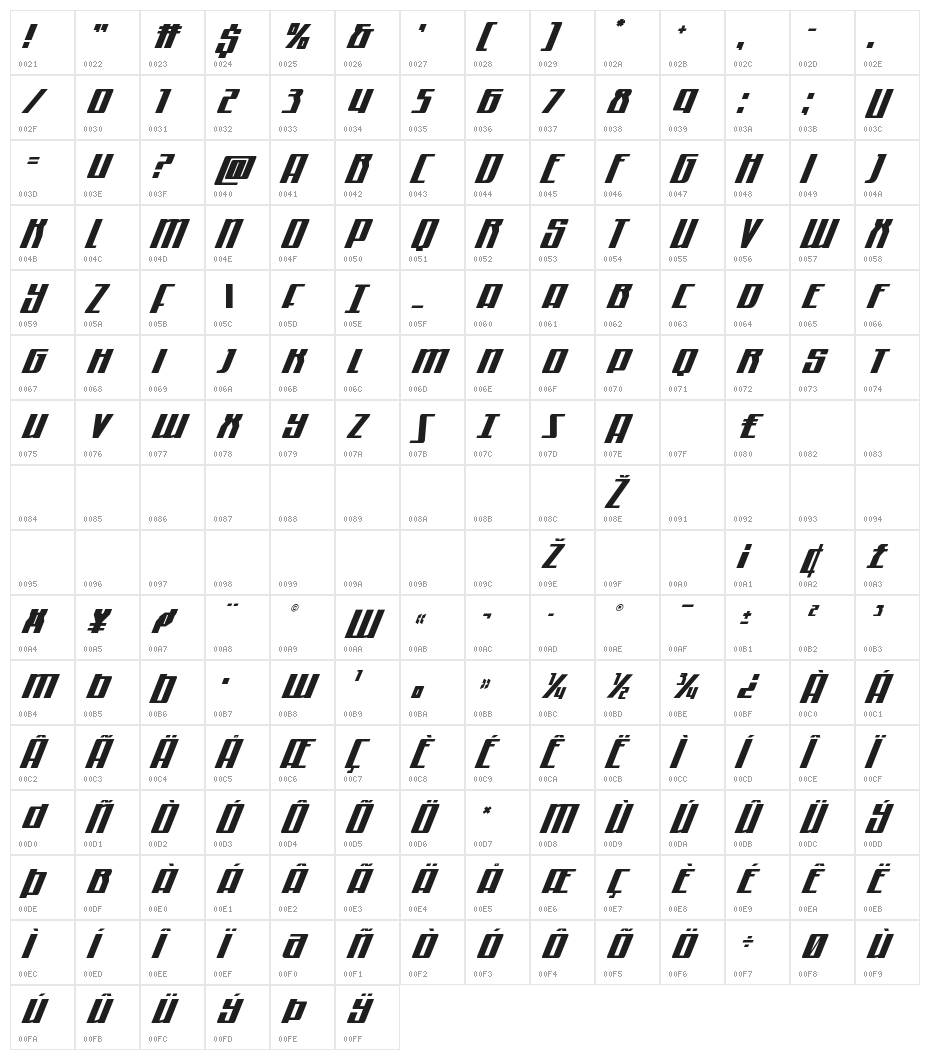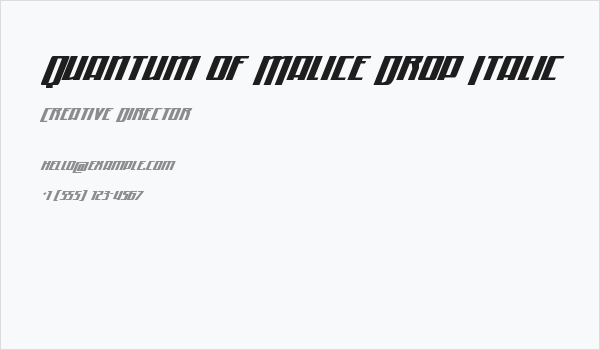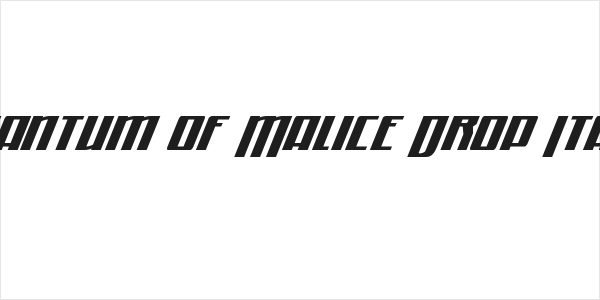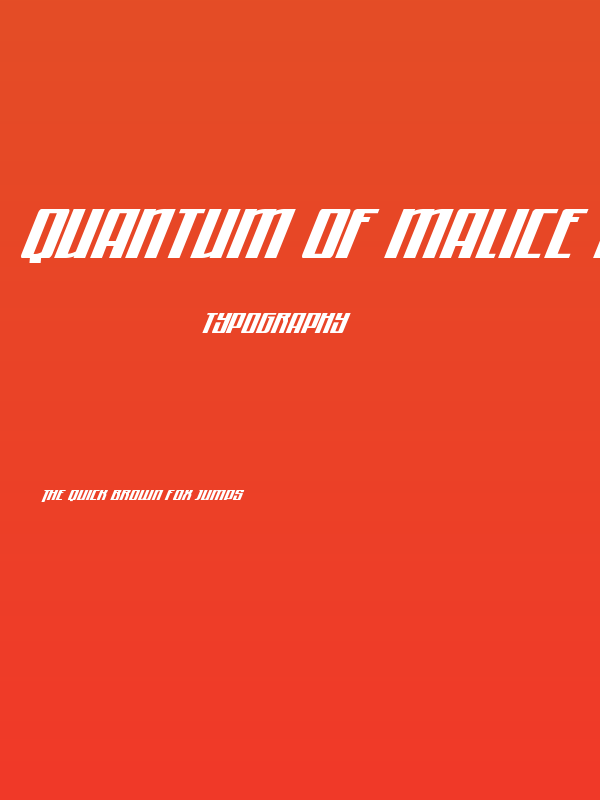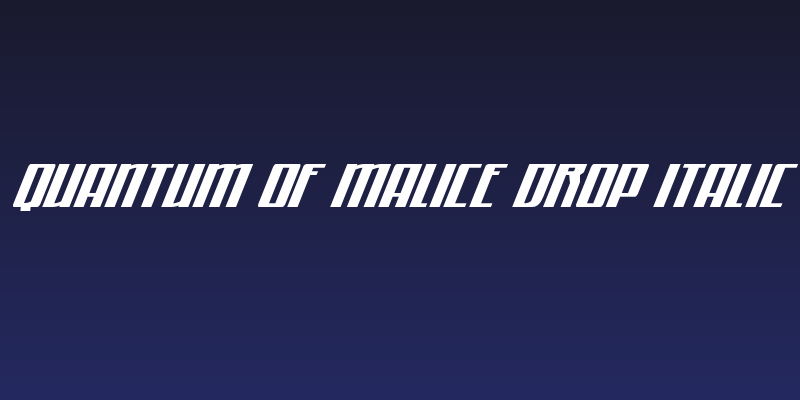
Quantum of Malice Drop Italic Font
Quantum of Malice Drop Italic Description
This font features a bold, italicized style with a strong geometric influence. The characters are sharply angled, giving a sense of motion and dynamism. The uppercase and lowercase letters maintain a consistent slant, enhancing the italic effect. The numbers and special characters follow the same stylistic approach, ensuring uniformity across all glyphs. The font's design is modern and assertive, making it suitable for projects that require a bold statement. Its high contrast in stroke thickness adds to its striking appearance, while the character spacing is relatively tight, contributing to its compact and impactful look.
| Proposed Projects | Ideal for sports branding, dynamic posters, video game titles, and modern advertising. |